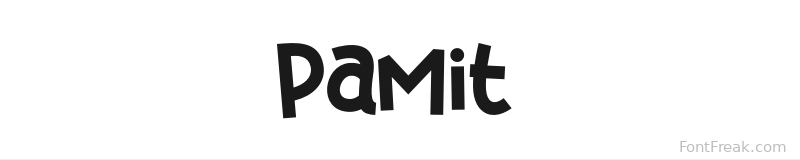
Pamit
About Pamit
Pamit is a captivating display font designed by Syaf Rizal, falling under the category of decorative typefaces. This font exudes a unique personality, making it an excellent choice for projects that demand attention and flair. Characterized by a medium stroke weight and a balanced contrast, Pamit features smooth curves and playful elements that enhance its visual appeal. The spacing is thoughtfully designed, allowing for readability while maintaining an energetic vibe that draws the eye.
This font shines in various creative applications. It is particularly well-suited for wedding invitations, where its charming and whimsical aesthetic can elevate the overall design. Additionally, Pamit is perfect for movie posters, lending a striking and memorable quality to titles and taglines. Restaurant menus can also benefit from its distinctive style, providing a touch of elegance that can entice diners. Furthermore, content creators will find Pamit ideal for social media graphics, ensuring that their posts stand out in crowded feeds.
Targeting graphic designers, small business owners, and content creators, Pamit offers versatility that caters to a wide range of audiences. Its engaging design can help brands establish a unique identity, making it a valuable asset for those seeking to make a lasting impression.
What sets Pamit apart is its ability to merge playful aesthetics with practicality, ensuring that it remains functional across various formats. Its free availability as a freeware typeface makes it accessible to all, encouraging widespread use and creativity. For anyone looking to enhance their design projects, the Pamit font free download is a fantastic opportunity to incorporate this distinctive typeface into their toolkit, promising to elevate the visual impact of any work.